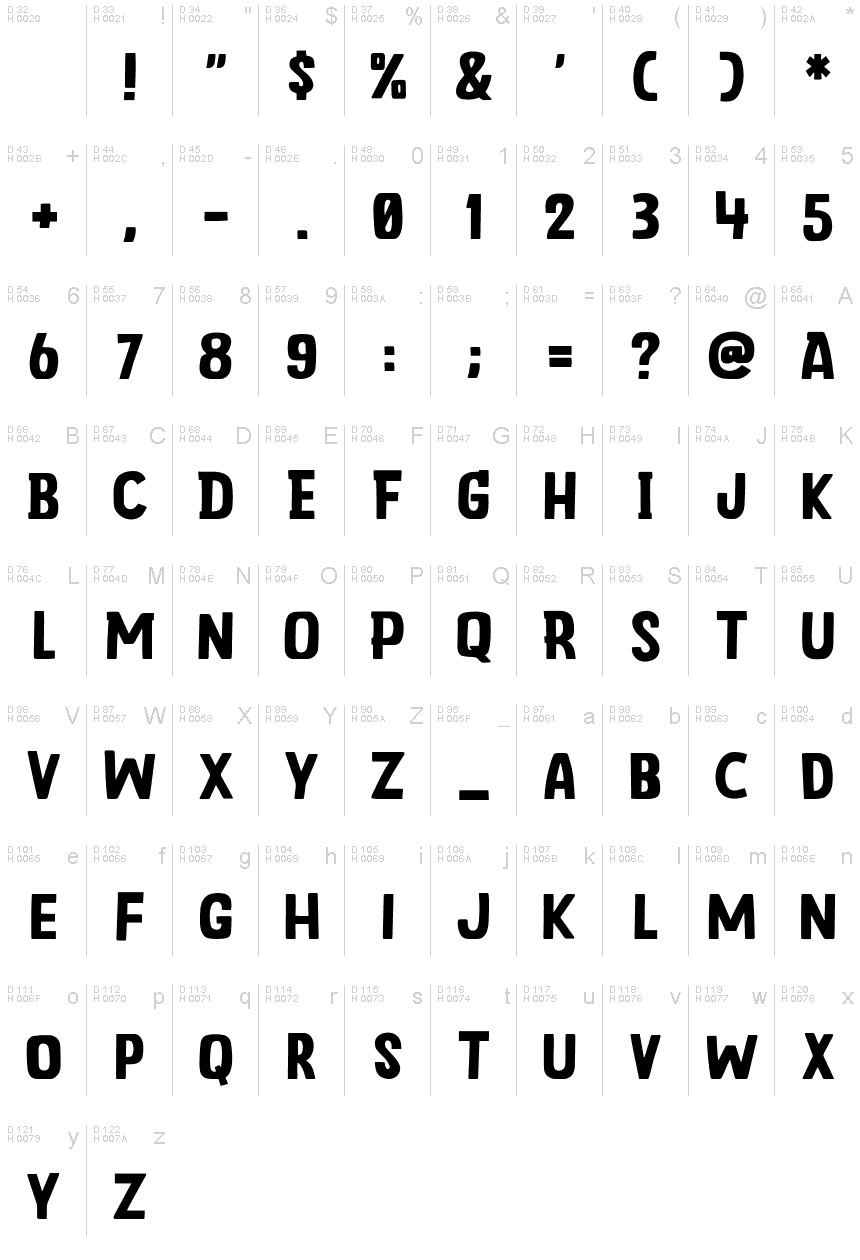
April Easter
April Easter by Khurasan is a bold and condensed display font that's perfect for adding a playful touch to your designs. Its cartoon-style letters are sure to catch the eye and make your text pop. This font is ideal for creating fun invitations, greeting cards, posters, and social media graphics. Use it in projects that require a youthful and energetic vibe or want to evoke the spirit of Easter. April Easter's bold weight ensures legibility even at smaller sizes while its condensed width makes it great for headlines and titles that need to fit within limited spaces. Give your designs an extra dose of cheer with April Easter!